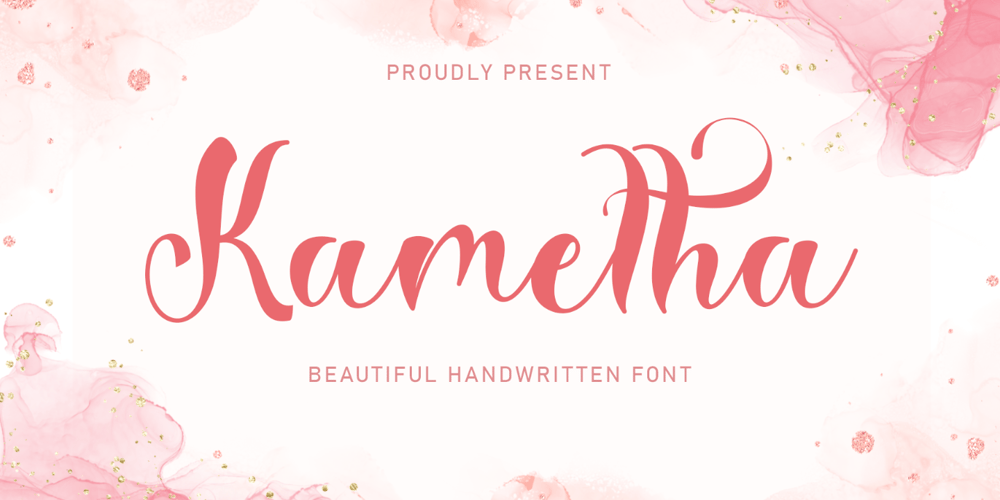
Kametha
Kametha font
Kametha Font Family was designed by Selvia Cahya and published by Selvia Design. Kametha contains 1 styles and family package options. “Kametha” is a beautiful and elegant handwritten font. This font is equipped with uppercase, lowercase, numerals, punctuation, and multilingual support. It is suitable for Christmas, summer, the 4th of July, graduation, a wedding, and others.